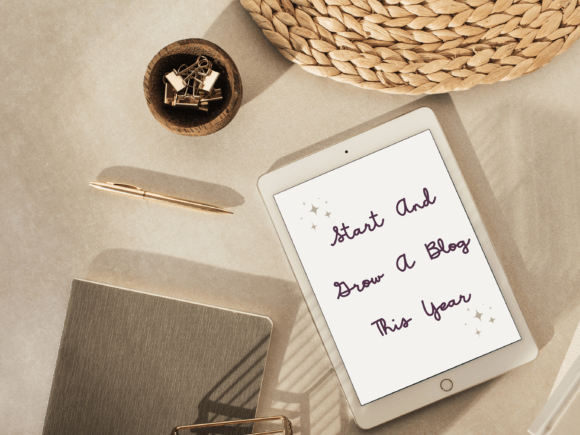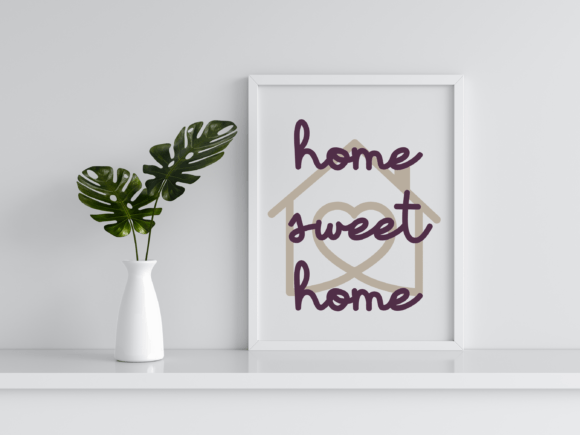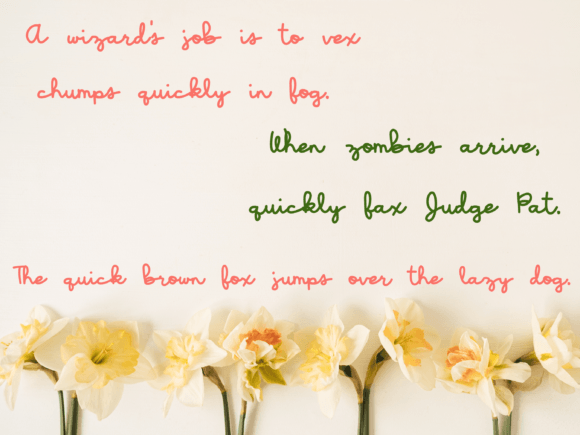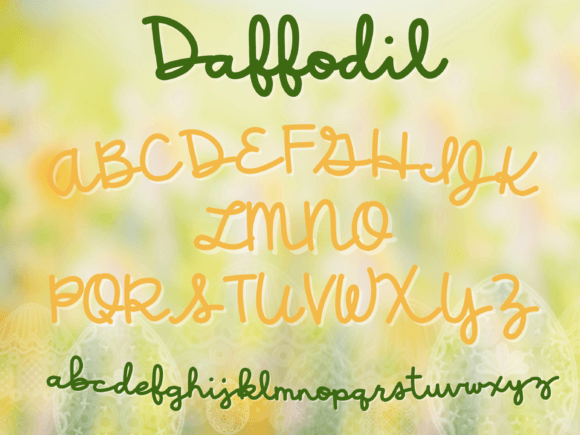
The Perfect Touch: Elevating Your Design with Daffodil Font
Have you ever been brainstorming a new project and suddenly felt a spark of inspiration, only to struggle with bringing it to life? You’re not alone. As designers, we’ve all been there – searching for that one element that will tie everything together. For many of us, the key to unlocking that perfect design lies in the typography. And that’s where the Daffodil Font comes in – a beautiful, elegant script that adds an authentic touch to any project.
With its distinctive calligraphy, Daffodil Font is more than just a font – it’s a statement piece. Its value lies in its ability to elevate even the simplest designs, making it a must-have for any designer looking to add a touch of sophistication to their work. Whether you’re working on a wedding invitation, a logo, or a marketing campaign, Daffodil Font is sure to impress.
Daffodil Font Key Features
- Unique Characteristics: This font features a unique blend of modern and traditional elements, with intricate details and subtle flourishes that add a touch of elegance to any design.
- Scalability: The font is designed to be highly scalable, ensuring that it looks great in a wide range of sizes, from small text to large headlines.
Daffodil Font Review
Overall, I’m quite impressed with the Daffodil Font. It’s a beautiful, elegant script font that’s perfect for adding a touch of sophistication to any design project.
- Unique and elegant design: The Daffodil Font is a one-of-a-kind script font that’s sure to stand out in any design project.
- High-quality glyphs: The font includes a wide range of glyphs, including international characters and ligatures.
- Smooth and fluid connections: The connections between letters are smooth and fluid, making it perfect for long blocks of text.
- Limited font weight options: The Daffodil Font only comes in one weight, which may limit its versatility in certain design projects.
- No italic or bold versions: While the font is beautiful in its standard form, it would be great to have italic or bold versions for added emphasis.
- Not suitable for sans-serif designs: The Daffodil Font is a script font, and it may not be the best choice for sans-serif designs or projects that require a more modern feel.
Overall, I would highly recommend the Daffodil Font for any design project that requires a touch of elegance and sophistication. While it has some limitations, its unique design and high-quality glyphs make it a valuable addition to any font collection.
Tips for Getting the Most Out of Daffodil Font
Use Daffodil Font for headings and titles to add a touch of elegance and sophistication to your designs. Experiment with different font sizes and styles to create visual interest. Pair Daffodil Font with other fonts to create a unique and visually appealing typography.
Daffodil Font is ideal for wedding invitations, business cards, and other formal documents. It’s also great for creating eye-catching headings and titles in marketing materials, such as brochures and posters.